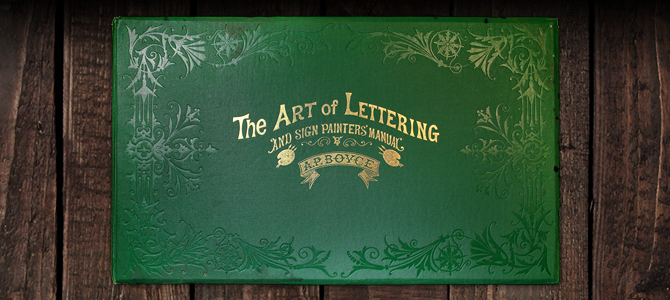
The Art of Lettering and Sign Painting Manual - A.P. Boyce - 1878
This book by A.P. Boyce is a prime example of an early sign painters manual that deals primarily with basic block and roman letterforms. It also delves into more complex matters such as various method of shading and suggested layouts, but where the book truly excels and differs is in its extremely descriptive passages of the nuances of various letter styles that would be of the utmost importance to a sign painter of the late 19th century. The classics never change, and the information within this book is just as useful today as it was nearly 140 years ago.